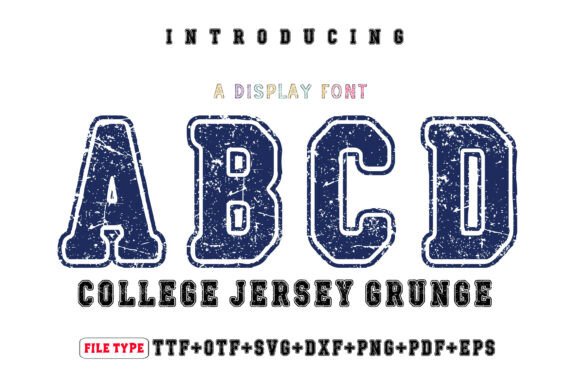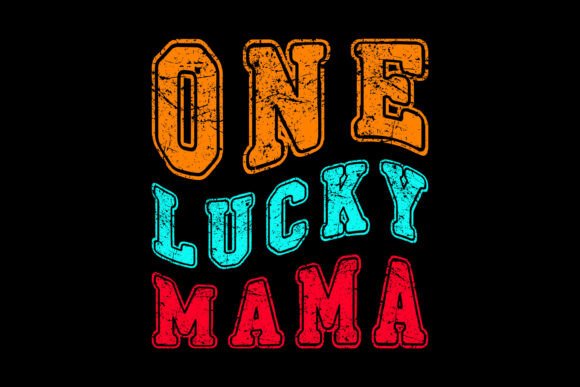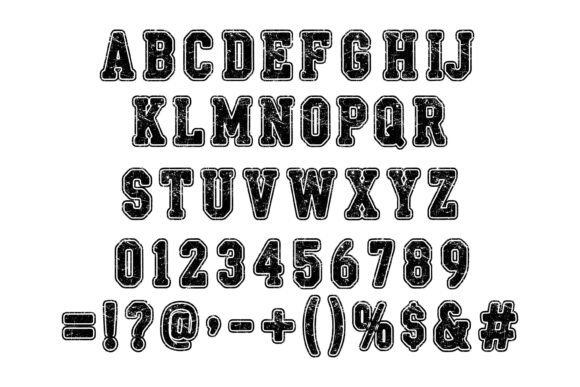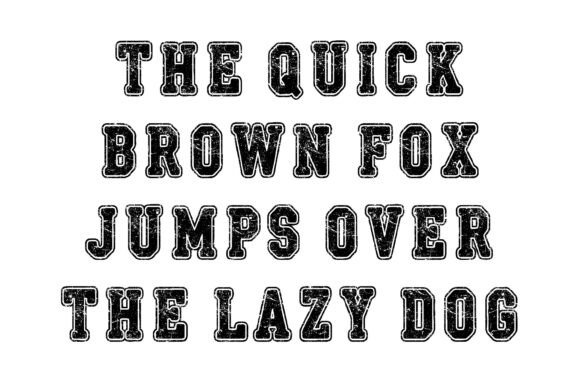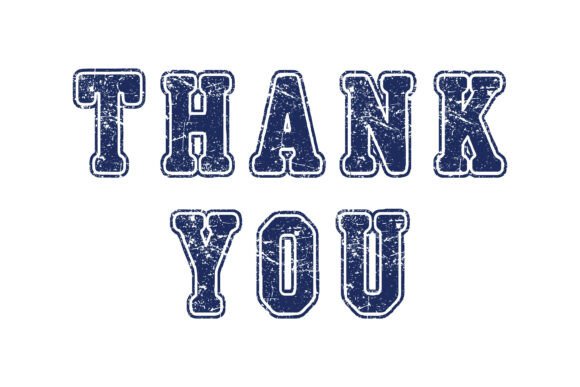
College Jersey Grunge Font – Unleash Bold, Athletic, and Edgy Designs
Are you looking for a font that embodies the spirit of college athletics, with a dash of ruggedness and modern grit? Look no further than the College Jersey Grunge Font. This versatile typeface is inspired by classic varsity lettering, but with a distressed, textured edge that gives it a unique, edgy feel. In this article, we’ll dive into the features and benefits of the College Jersey Grunge Font, and explore how it can elevate your designs to the next level.
Inspired by Classic Varsity Lettering
The College Jersey Grunge Font is rooted in the classic varsity lettering of college athletics. It’s a style that’s synonymous with school spirit, team pride, and a sense of community. But, while traditional varsity fonts can be bold and eye-catching, they often lack a certain level of sophistication and edge. That’s where the College Jersey Grunge Font comes in – it takes the best of classic varsity lettering and adds a modern, grunge-inspired twist.
Distressed, Textured Edge for a Rugged Look
The grunge-styled finish of the College Jersey Grunge Font is what sets it apart from other fonts in its class. The distressed, textured edge gives the font a worn, athletic look that’s perfect for sports branding, team jerseys, and college-themed apparel. But, despite its rugged appearance, the font remains highly legible and versatile, making it suitable for a wide range of design applications.
Perfect for Sports Branding and Team Jerseys
The College Jersey Grunge Font is a natural fit for sports branding and team jerseys. Its bold, athletic style makes it perfect for basketball and cricket posters, college-themed apparel, and energetic event promotions. Whether you’re designing for a school team, a sports league, or a fitness brand, this font is sure to bring a dynamic punch to your designs.
Beyond Sports – Versatile Applications
While the College Jersey Grunge Font is certainly well-suited to sports branding and team jerseys, its versatility extends far beyond these applications. The font’s grunge-styled finish lends authenticity to stickers, packaging, t-shirts, and logos, while its bold, athletic style makes it perfect for editorials, magazine spreads, and book covers. You can also use it to create eye-catching social media graphics, YouTube thumbnails, and advertisements that demand attention.
Key Features of the College Jersey Grunge Font
- Bold, athletic style: Perfect for sports branding, team jerseys, and college-themed apparel
- Distressed, textured edge: Gives the font a rugged, worn look that’s both authentic and eye-catching
- Highly legible: Despite its grunge-styled finish, the font remains easy to read and versatile
- Versatile applications: Suitable for a wide range of design applications, from sports branding to editorials and advertising
What Sets the College Jersey Grunge Font Apart
The College Jersey Grunge Font is more than just a font – it’s a design statement. Its unique blend of classic varsity lettering and modern grunge style makes it a standout in any design application. Here are just a few things that set it apart:
- Authentic look and feel: The font’s distressed, textured edge gives it a genuine, athletic look that’s hard to replicate with other fonts
- Confidence and character: The College Jersey Grunge Font exudes confidence and character, making it perfect for designs that need to make a bold statement
- Dynamic punch: The font’s bold, athletic style adds a dynamic punch to any design, making it perfect for sports branding, team jerseys, and energetic event promotions
| Author | ML Design |
The College Jersey Grunge Font is a versatile, bold, and athletic typeface that’s perfect for designers and crafters looking to add a touch of rugged sophistication to their designs. With its unique blend of classic varsity lettering and modern grunge style, this font is sure to make a statement in any design application. Whether you’re designing for sports branding, team jerseys, college-themed apparel, or simply looking for a font that adds a dynamic punch to your designs, the College Jersey Grunge Font is an excellent choice.